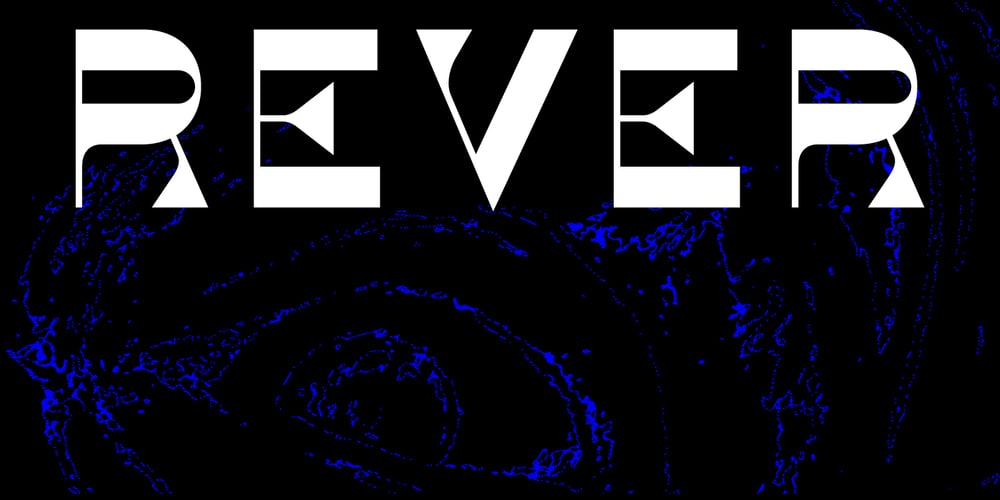
Rever
Rever font
Rever Font Family was designed by Alexander Smirnov and published by ParaType. Rever contains 3 styles and family package options. Rever is an experimental typeface by a young designer Sasha Smirnov. It clearly alludes to 19th century typefaces with reverse contrast, but still the character shapes are as simple and geometric as possible. Rever answers the question “What can a reverse-contrast typeface look like today?” Its set of styles is non-traditional: in addition to a regular one, there are also an oblique (slanted to the left, not to the right!) and a stencil styles. The typeface can work for typographic experiments of any kind — web, print or motion design. The font was released by Paratype in 2019.